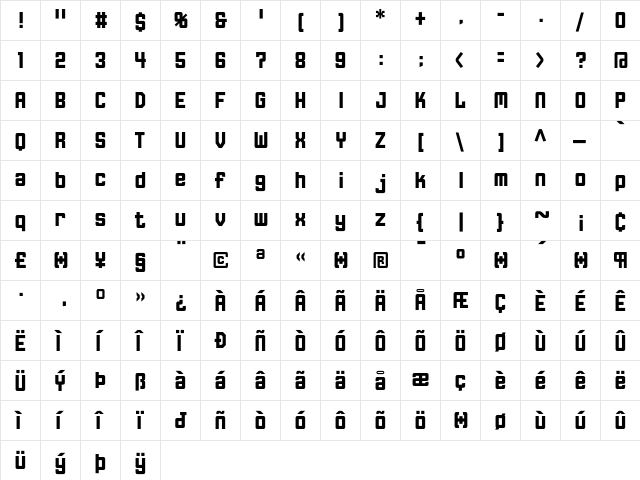
FFGothic OneTwoCondensed
| Style | OneTwoCondensed |
Design Context for FFGothic Typeface
FFGothic has the quiet confidence of well-executed sans-serif typography: versatile, unobtrusive, and dependable at any size. The condensed width makes it efficient for tight spaces without sacrificing legibility.
Font Pairing: Works well alongside a characterful serif or display font that can carry the expressive load while FFGothic handles the functional copy.
Pro Tip: Try FFGothic in all-caps with moderate tracking for navigation and label copy — it performs well in systematic UI contexts.